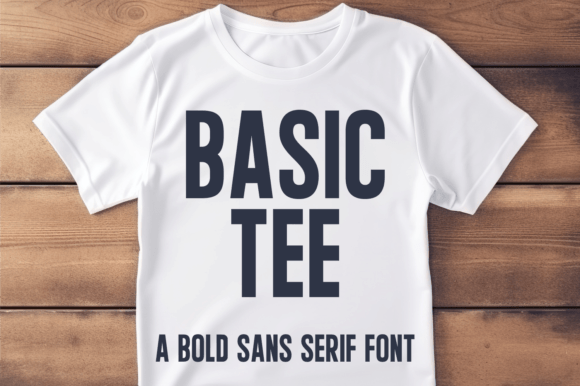
Welcome to the world of Basic Tee Font, where simplicity meets versatility, and creativity knows no bounds. This captivating sans-serif font family has been meticulously crafted to ignite your imagination and elevate your designs to new heights. Whether you're a seasoned designer or just starting your creative journey, Basic Tee Font is your perfect companion, ready to transform your ideas into stunning visual masterpieces.
Step into a realm of endless possibilities, where Basic Tee Font becomes your trusty ally in creating designs that resonate with your audience. Its clean and minimalist aesthetic effortlessly complements a wide range of projects, from eye-catching book covers and striking magazine layouts to engaging social media posts and heartfelt invitations. Unleash your inner artist and let Basic Tee Font guide you in crafting designs that leave a lasting impression.
With Basic Tee Font, you'll discover a font that's as versatile as it is beautiful. Its inherent simplicity allows it to seamlessly adapt to any design concept, becoming an integral part of your creative vision. Whether you're crafting logos that exude strength and boldness or designing invitations that radiate elegance and charm, Basic Tee Font has the versatility to seamlessly blend into your design aesthetic.
Beyond its aesthetic appeal, Basic Tee Font is a font designed with purpose. Created by SVG Cuttables, a team dedicated to empowering crafters with innovative design tools, this font is meticulously crafted to cater to the unique needs of the crafting community. Its clear and legible letterforms ensure effortless readability, making it the perfect choice for projects that demand clarity and precision.